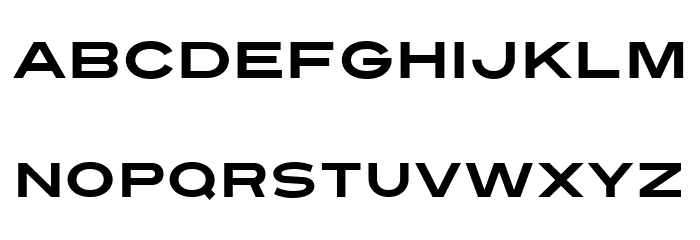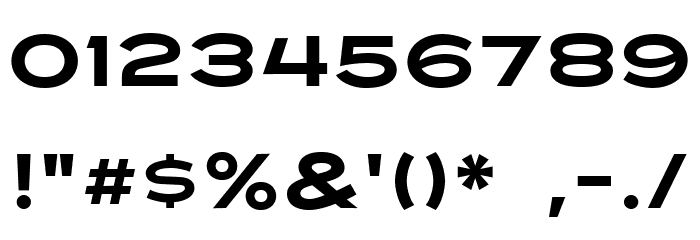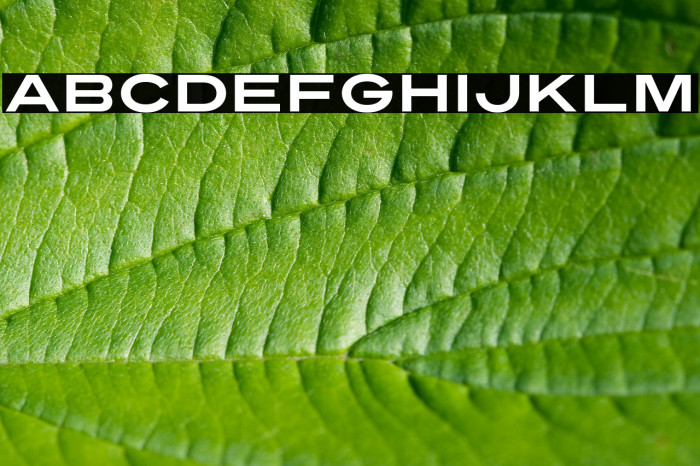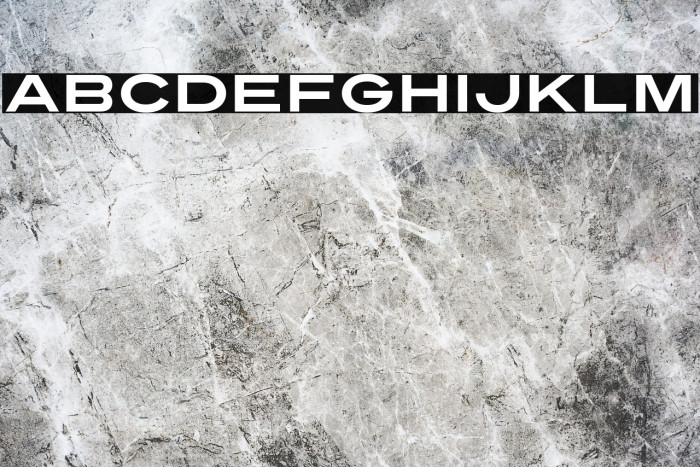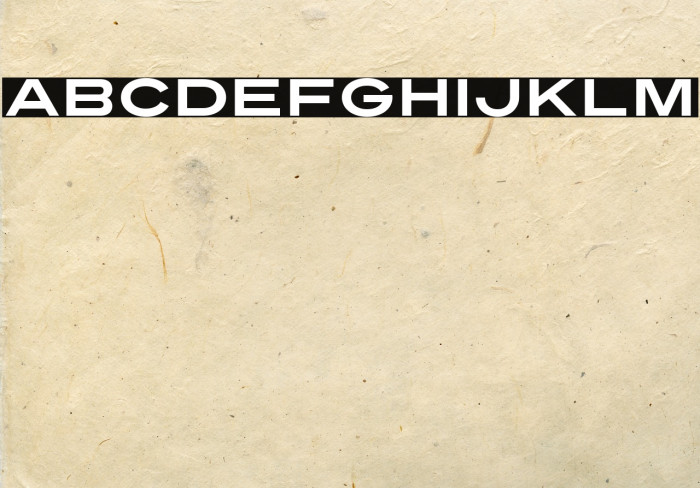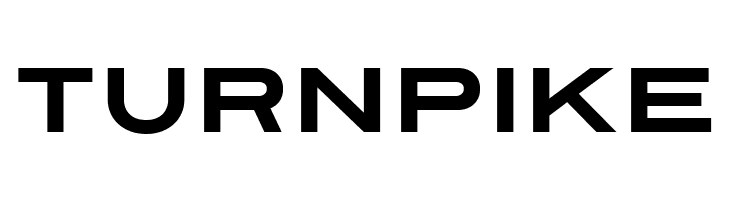
Turnpike Font
This font features a bold and modern sans-serif style, characterized by clean lines and a uniform stroke width. The uppercase letters are well-proportioned, offering a sense of stability and clarity. The numerals are distinct and easily readable, making them suitable for various applications. Special characters are designed with the same attention to detail, ensuring consistency across the typeface. The overall appearance is sleek and contemporary, making it ideal for projects that require a strong visual impact.
A bold, modern sans-serif font with clean lines and uniform stroke width.
- Proposed Projects: Ideal for branding, advertising, headlines, and digital interfaces where clarity and impact are essential.
- Use Case: Headlines, Logos, Branding